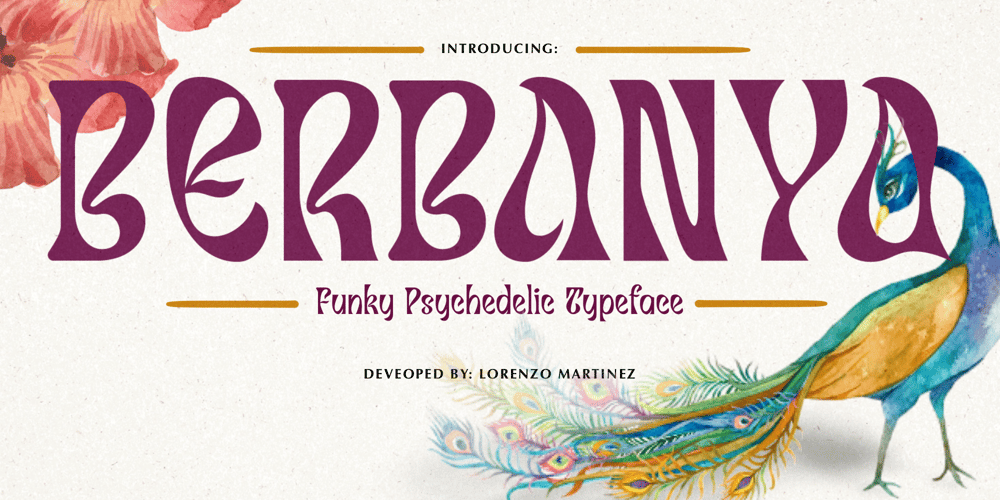
Berbanya Font Family was designed by Lorenzo Gabriel Martinez and published by Lurinzu Studios. Berbanya contains 1 styles and family package options. “Berbanya” is a funky psyechelic display font with unique and unusual letterforms that pushes letter legibility to the edge while addin some “funk-soul” in it.The name “Berbanya” (Ber-bun- yah) comes from the Filipino folktale story about a magical and colorful bird named “Ibong Adarna” that can heal anyone through its voice. This magical bird nests in the magical Mt. Tabor located in the kingdom of BerbanyaThis display font is intended to be used in big-scale designs such as headlines, posters, flyers, apparel, quotes, greeting cards, product packaging, album covers, movies, and more.*This font includes letters, numbers, alternates, and all essential marks needed.